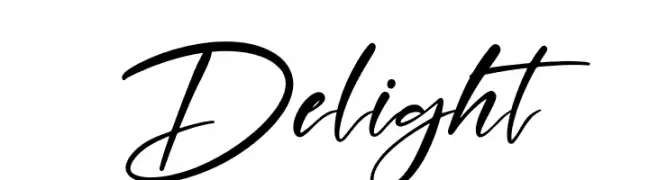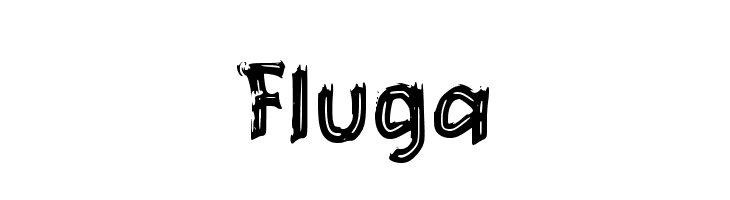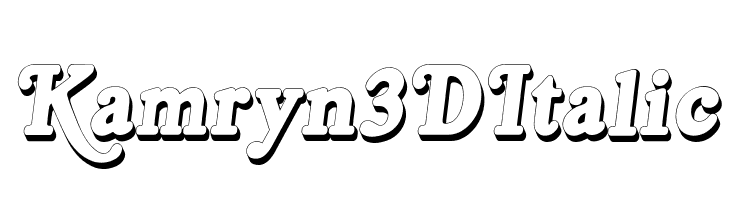
A dynamic and fluid script font with elegant, flowing letterforms.
A bold, decorative serif font with intricate interior patterns.
A bold, geometric font with a futuristic and industrial style.
A rugged, distressed font with a hand-drawn, felt pen style.
A playful font with letters inside Pikachu silhouettes, perfect for fun projects.
A pixelated, monospaced font with a retro digital aesthetic.
An elegant italic font with smooth, flowing letterforms and a refined style.
A playful, bold font with rounded characters, ideal for fun and energetic designs.
A minimalist, tall, and narrow font with clean lines and a modern aesthetic.
An elegant, high-contrast script font with flowing, interconnected letters.